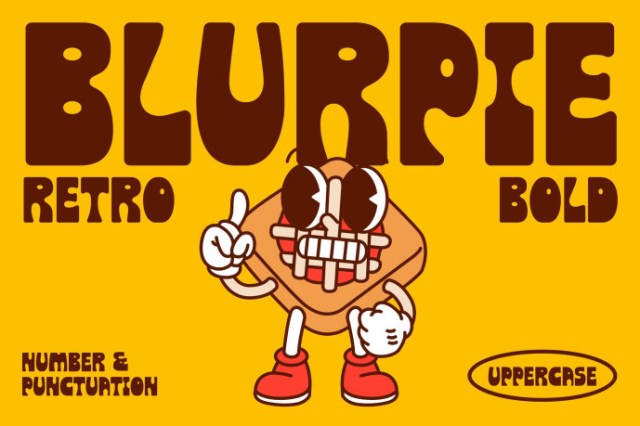
Blurpie – Bold Display Font
Designer: Slidehack
Blurpie – Bold Display Font is a bold retro typeface with chunky, playful, and eye-catching style. Perfect for posters, branding, packaging, merchandise, and vintage-inspired designs, this font adds personality and charm to your creative projects. Its fun and nostalgic look makes your work stand out in both digital and print.